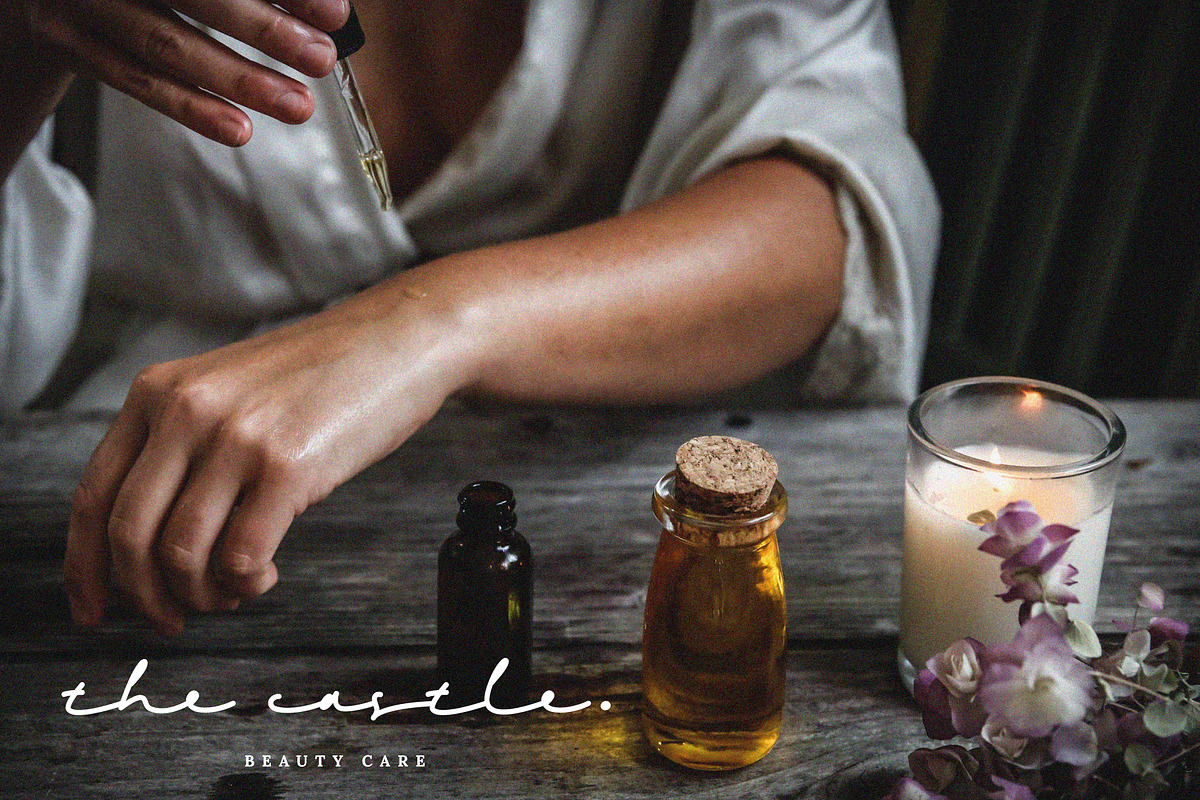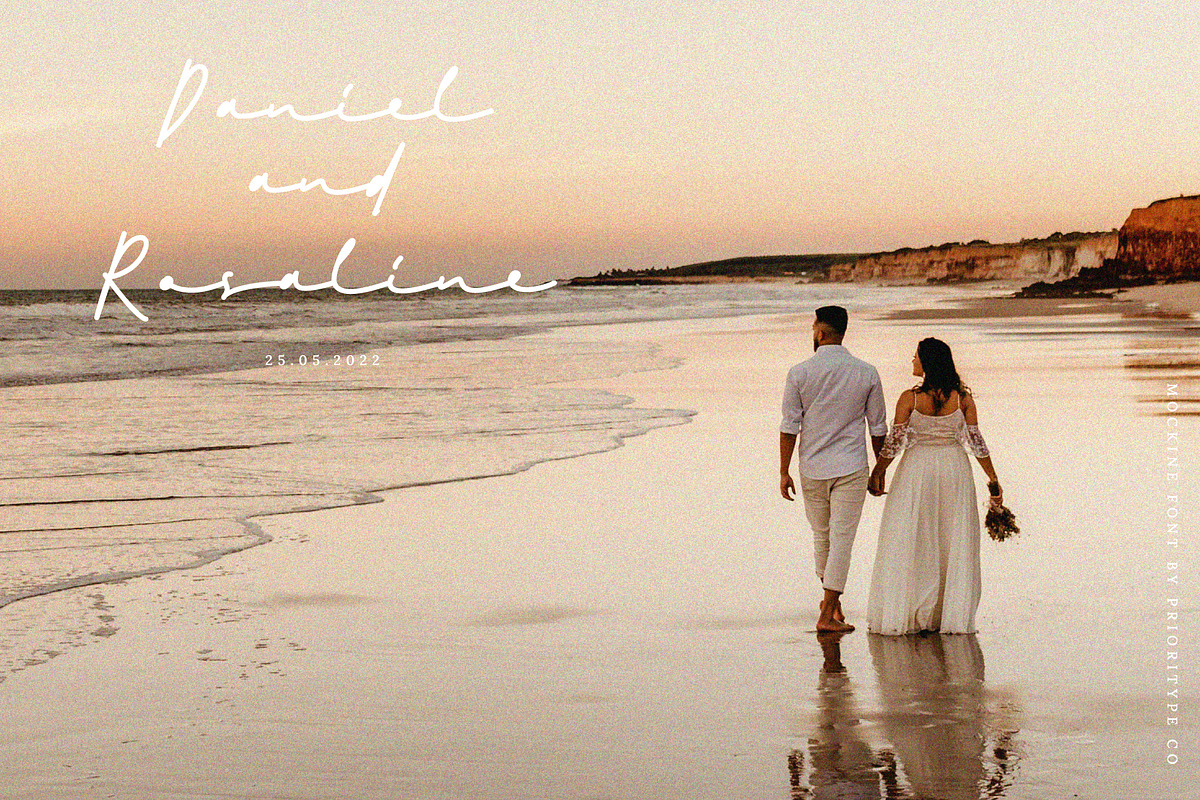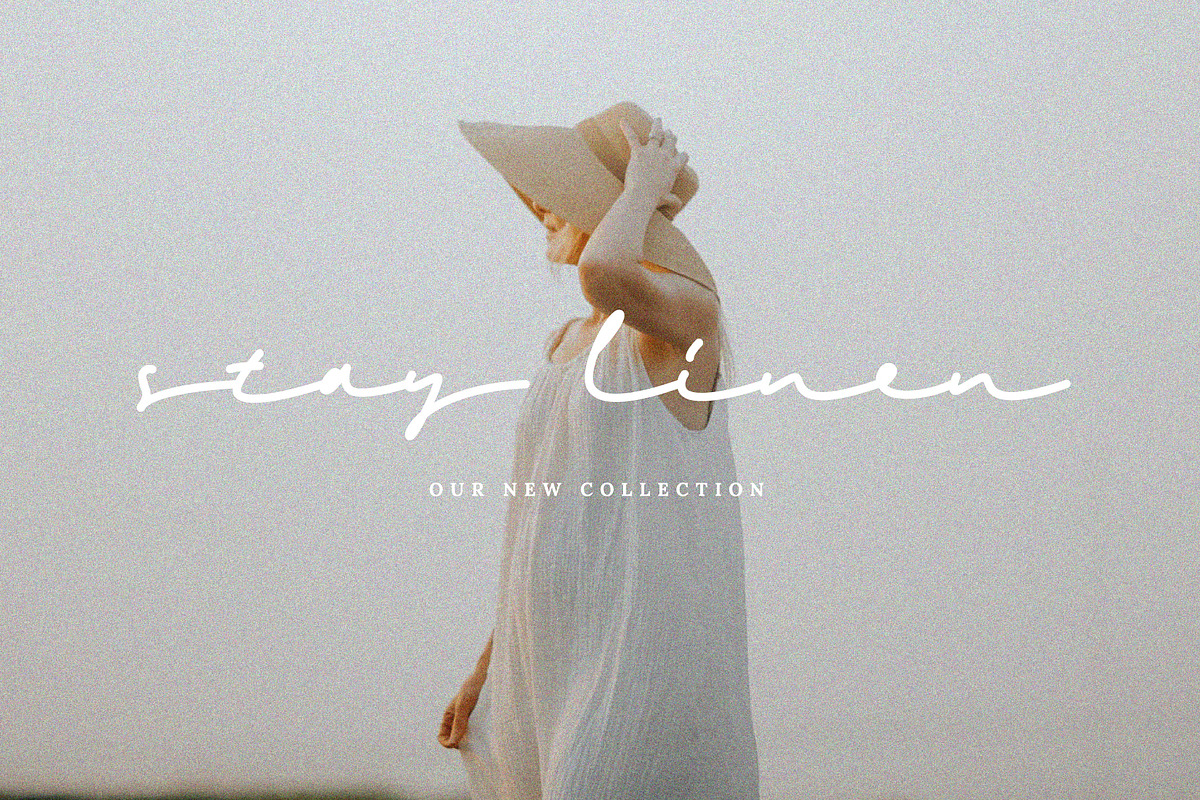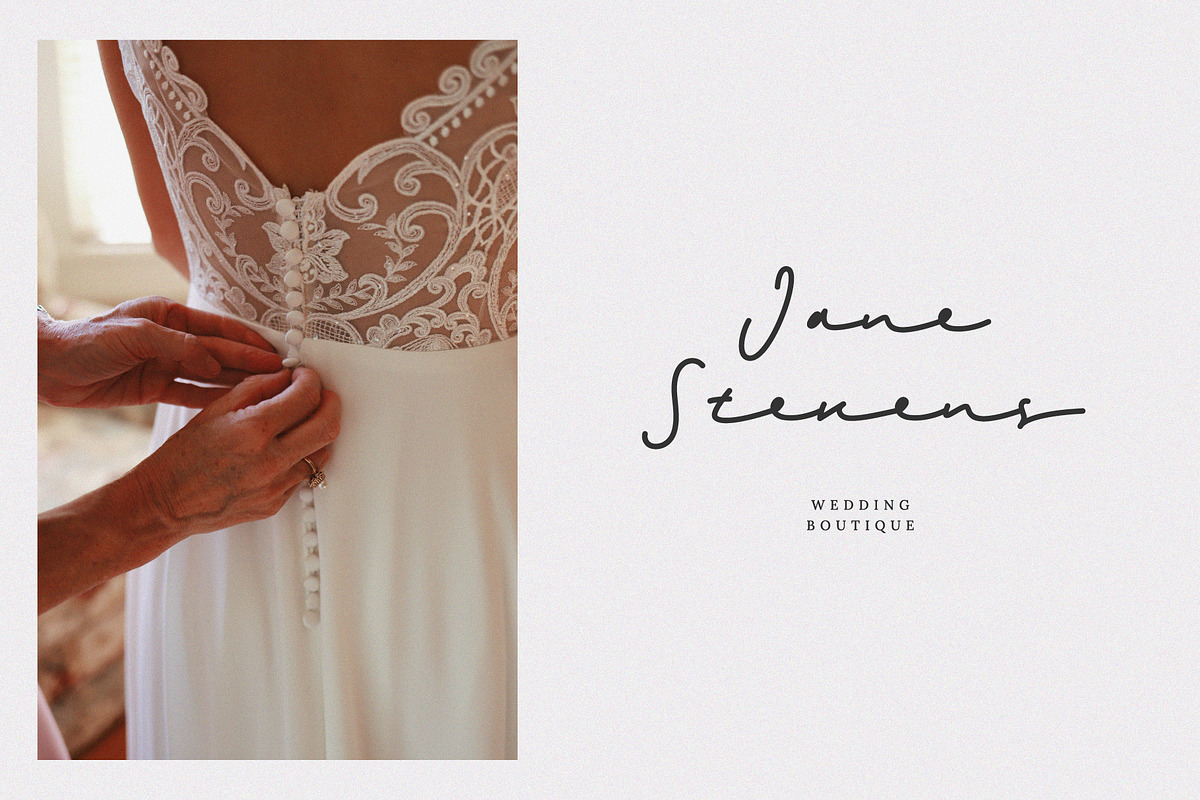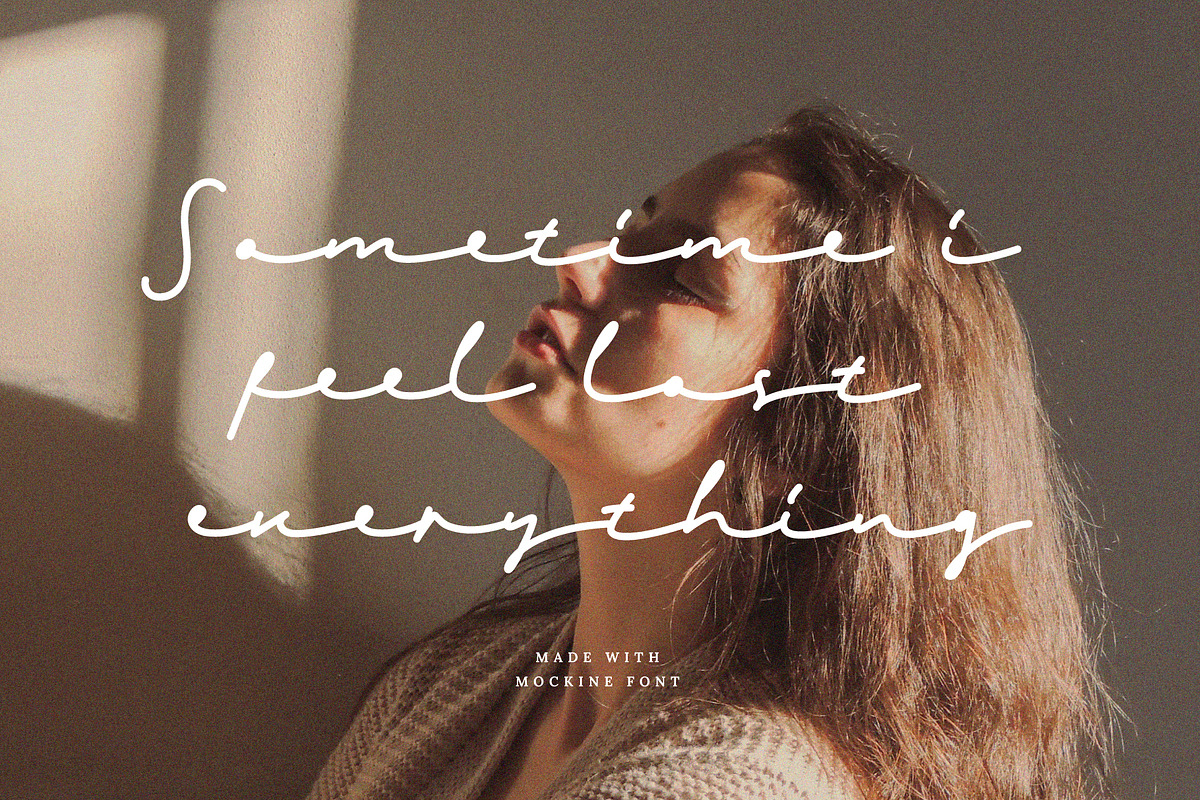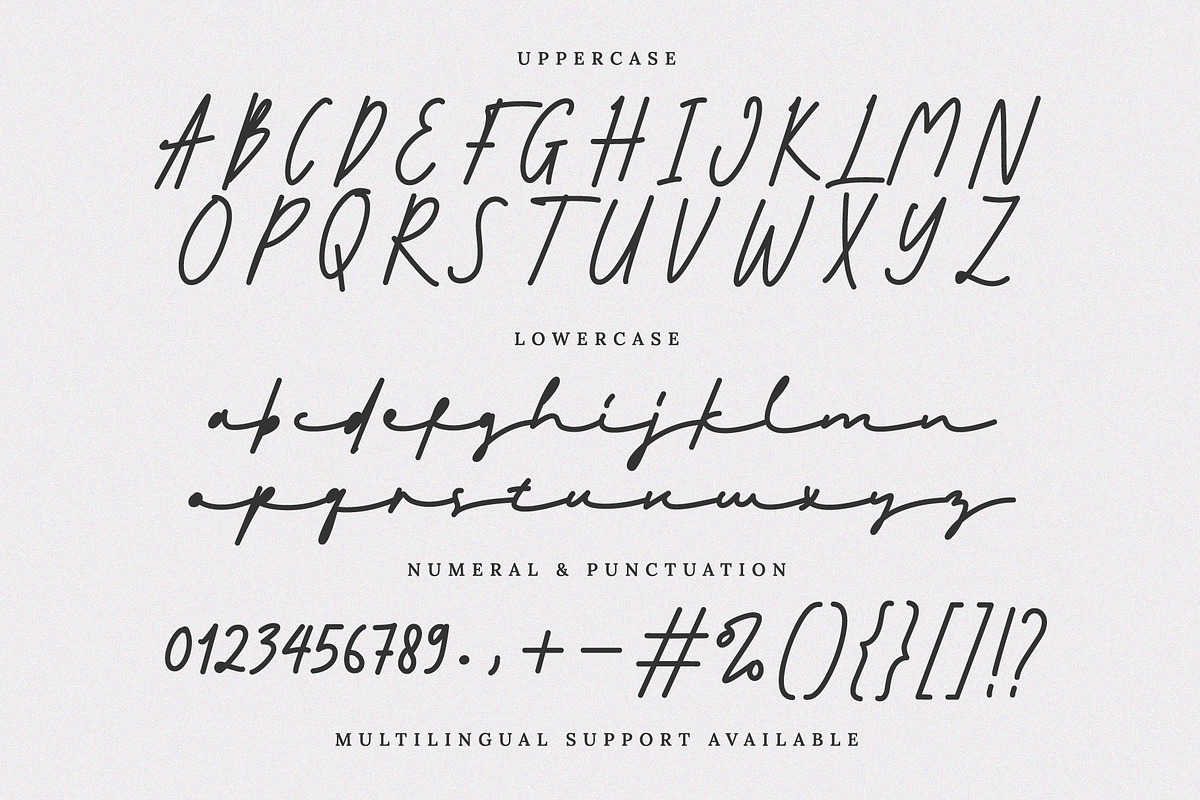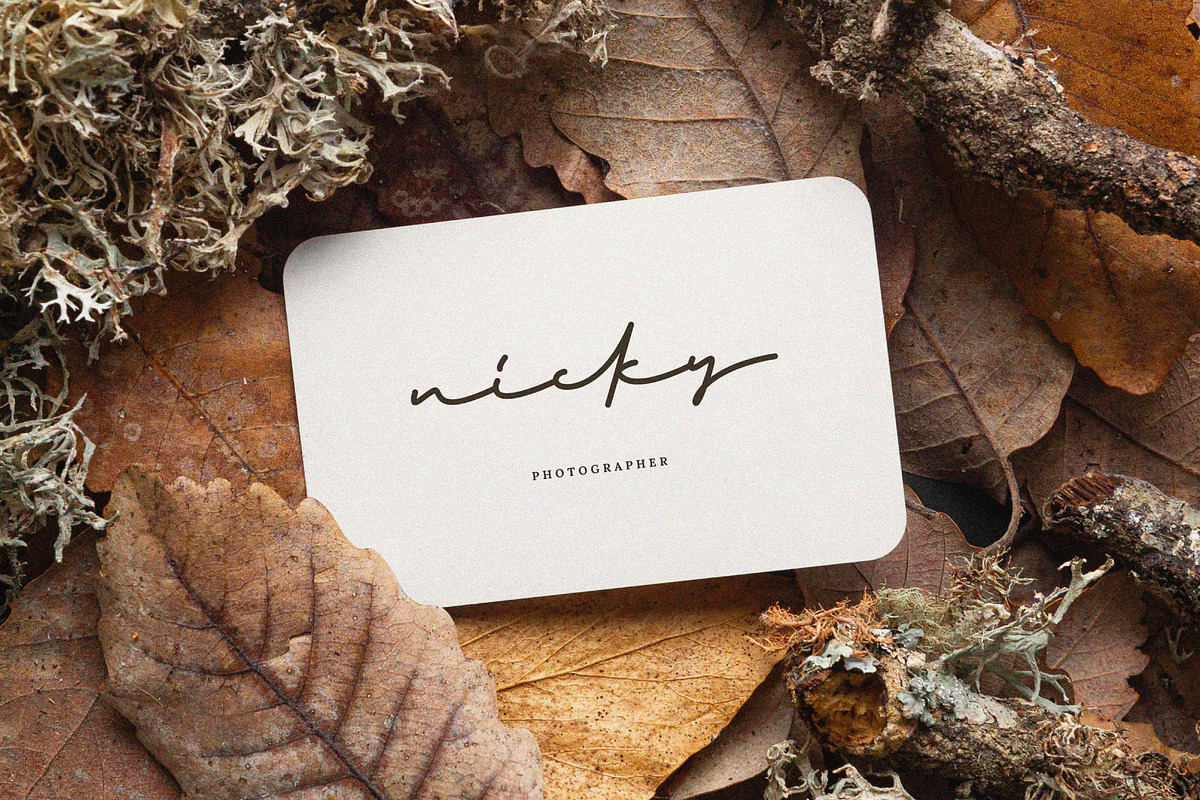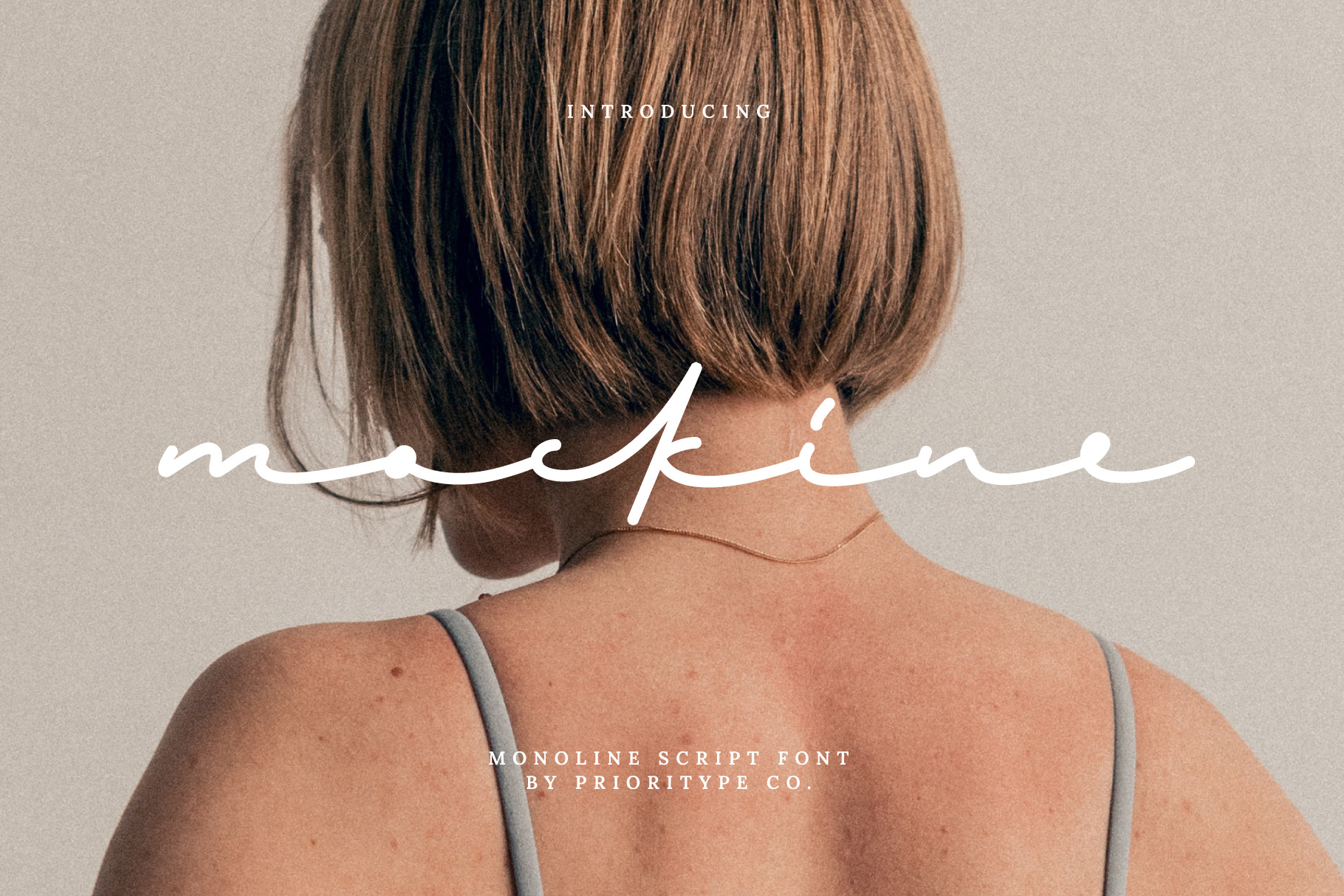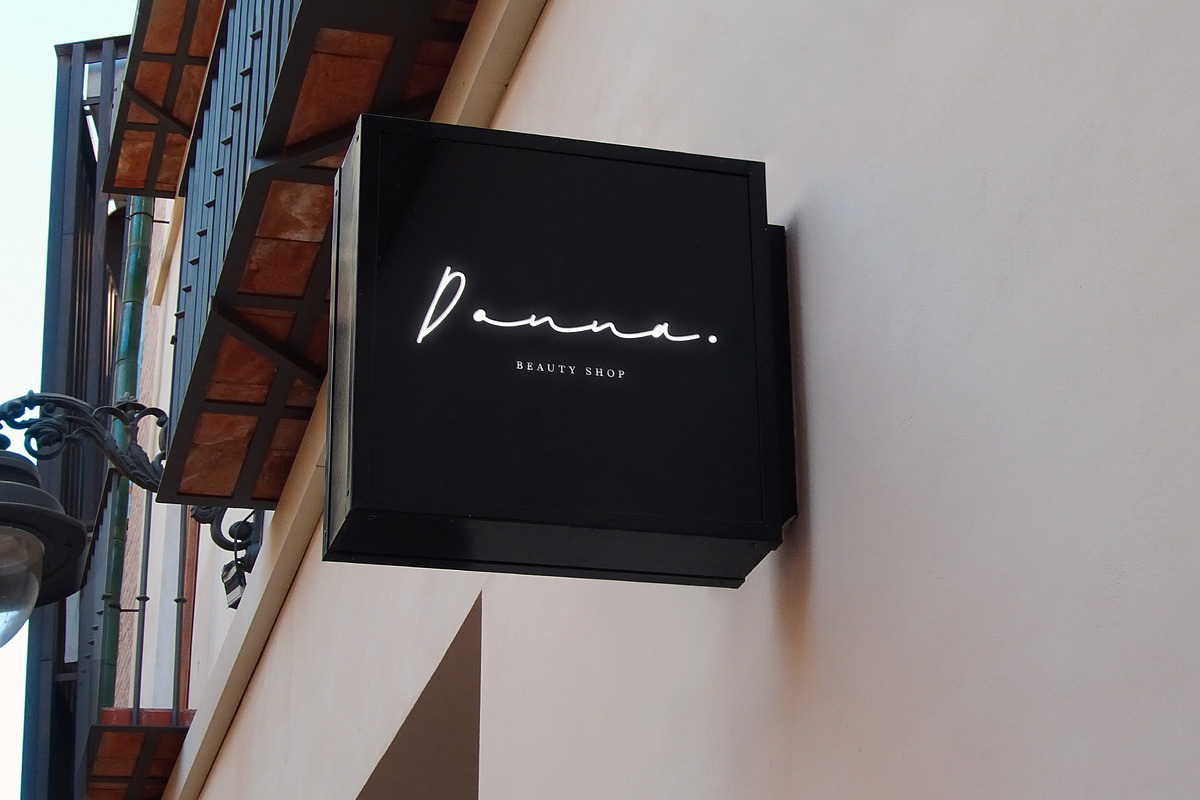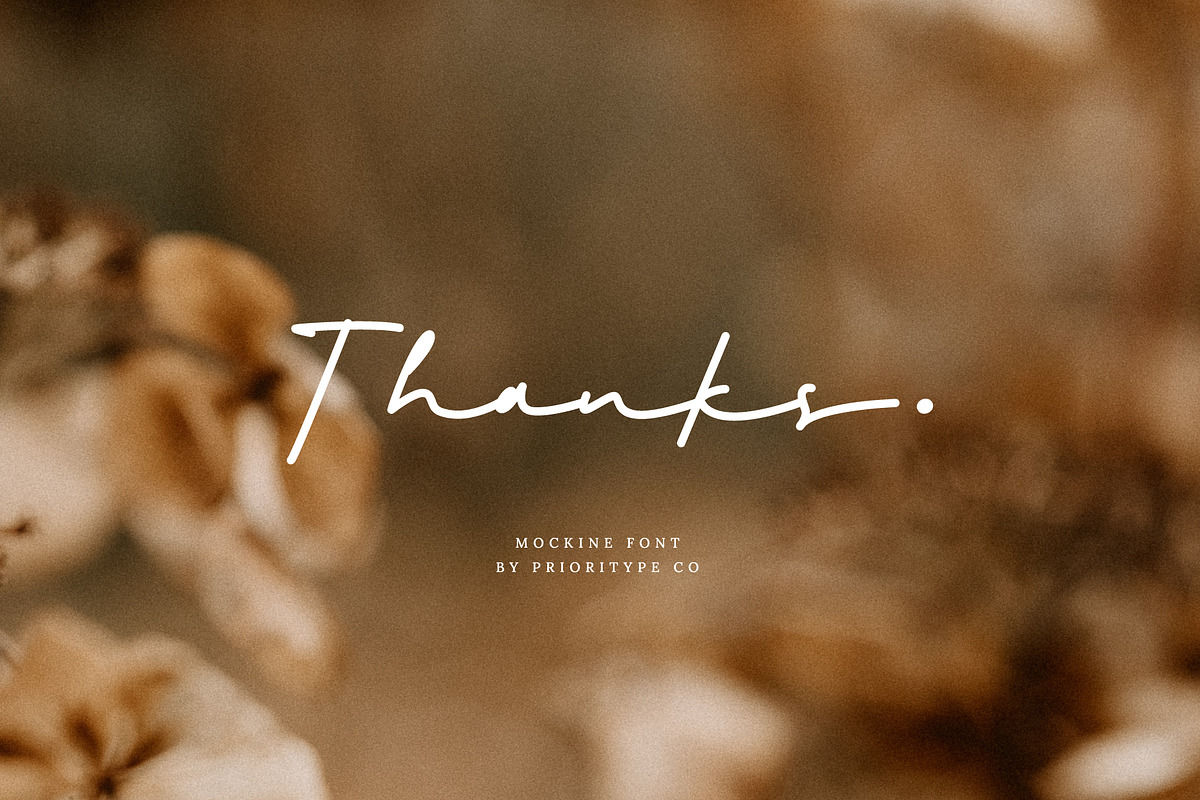
Mockine – Monoline Script Font
Mockine – Monoline Script Font by Prioritype Co.
Introducing a new script typeface. Who is he “Mockine”. Monoline script font with natural hand strokes. It is perfect for your design projects such as logos, branding or social media posts.
- Features: Uppercase, Lowercase, Numeral, Punctuation, Multilingual, Ligatures & PUA Encoded.